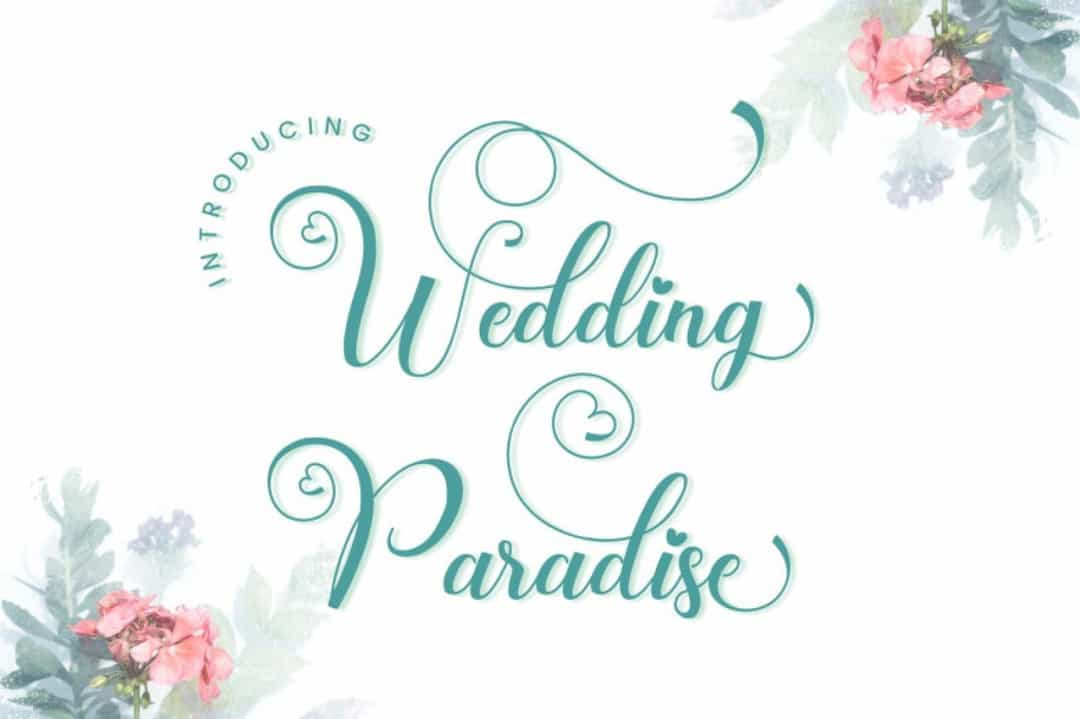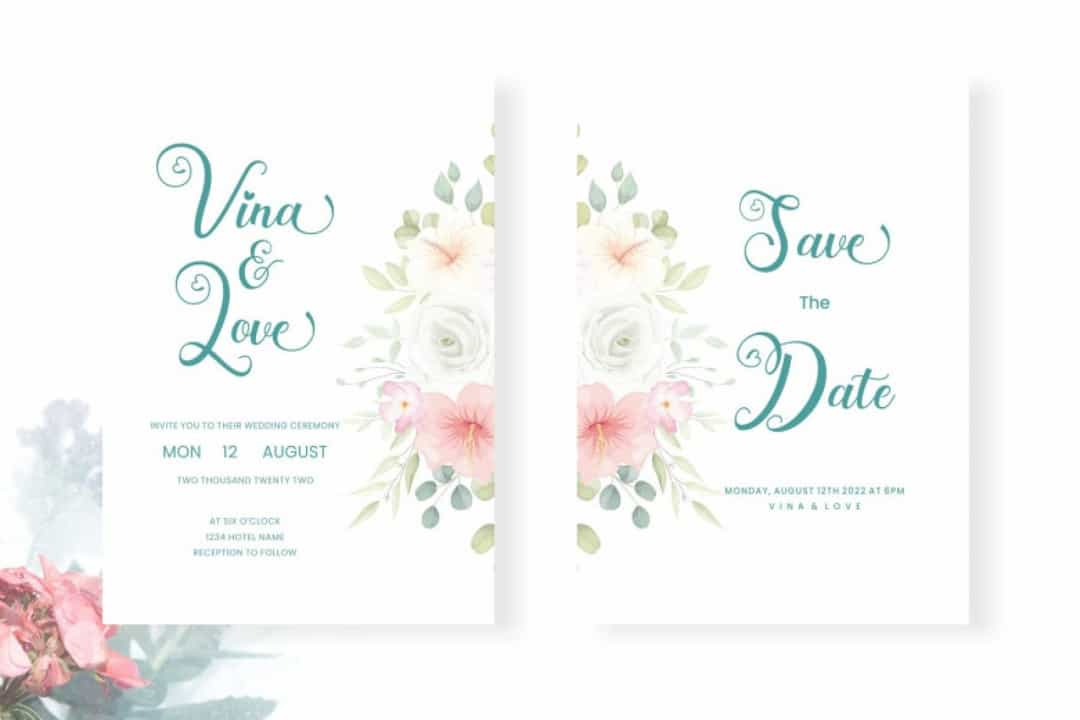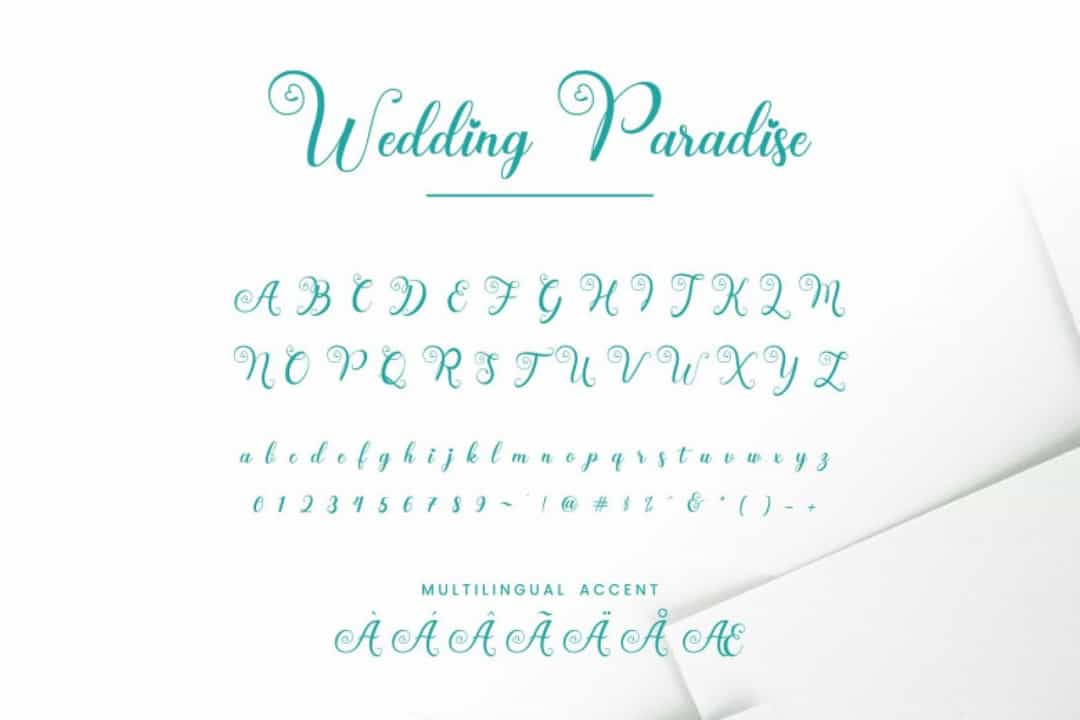
Wedding Paradise is an elegant calligraphy script font with a graceful yet luxurious appearance. This font makes an excellent complement for cards, wedding invitations, logos, book titles and brand names, among others.